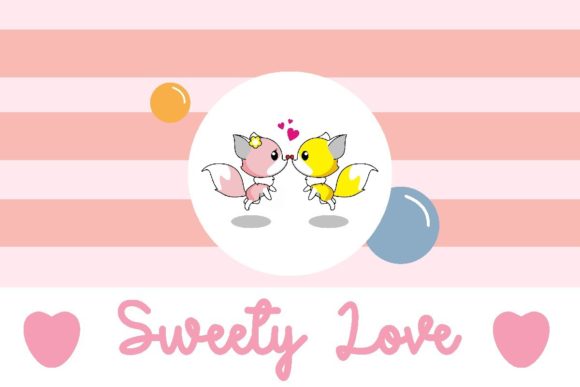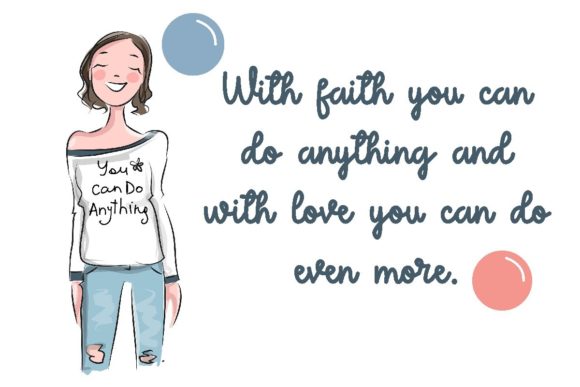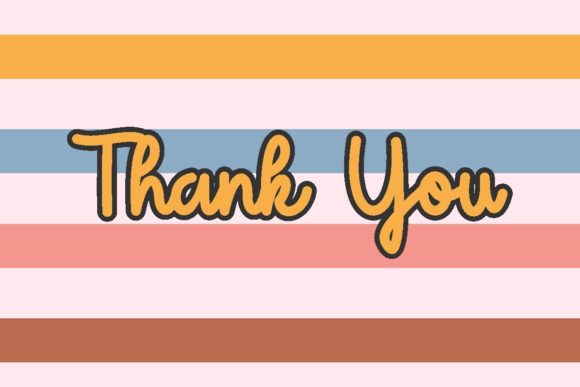
Bubble Glue Font: Elevate Your Designs with Elegance and Charm
Bubble glue feels equally charming and elegant. This stunning handwritten font is a stylish homage to classic calligraphy. It will elevate a wide range of design projects, be it branding, headings, wedding designs, invitations, and so much more!
What is Bubble Glue Font?
Bubble Glue Font is a beautiful, handwritten typeface that has captured the hearts of designers and crafters alike. Its unique, elegant style is reminiscent of traditional calligraphy, making it perfect for adding a touch of sophistication to any design project.
Key Features of Bubble Glue Font
- Handwritten Elegance: Bubble Glue Font boasts a beautiful, handwritten style that exudes elegance and charm.
- Classic Calligraphy Inspiration: The font draws inspiration from traditional calligraphy, making it perfect for designs that require a touch of sophistication.
- Versatile: Bubble Glue Font can be used for a wide range of design projects, including branding, headings, wedding designs, invitations, and more.
- Easy to Read: The font is clear and easy to read, making it perfect for use in both digital and print designs.
Uses of Bubble Glue Font
Bubble Glue Font is a versatile typeface that can be used in a variety of design projects. Here are some ideas to get you started:
- Branding: Use Bubble Glue Font to create elegant and sophisticated brand identities that will set your business apart.
- Wedding Designs: Add a touch of romance and elegance to your wedding designs, including invitations, programs, and more.
- Headings and Titles: Use Bubble Glue Font to create beautiful headings and titles for your blog posts, articles, and other written content.
- Invitations: Create stunning invitations for special occasions, such as birthday parties, baby showers, and more.
- Signage: Use Bubble Glue Font to create eye-catching signage for your business or event.
Tips for Using Bubble Glue Font
Here are some tips for getting the most out of Bubble Glue Font:
- Pair with Other Fonts: Experiment with pairing Bubble Glue Font with other fonts to create a unique and visually appealing design.
- Use in Moderation: While Bubble Glue Font is beautiful, it can be overwhelming if used excessively. Use it in moderation to create a balanced design.
- Adjust Font Size: Experiment with different font sizes to create visual interest and hierarchy in your design.
- Add Decorations: Consider adding decorations, such as flourishes or graphics, to enhance the elegance of Bubble Glue Font.
Bubble Glue Font is a stunning, handwritten typeface that is sure to elevate your design projects. With its elegant and charming style, it’s perfect for adding a touch of sophistication to branding, headings, wedding designs, invitations, and more. Whether you’re a designer or crafter, Bubble Glue Font is a must-have in your font collection.